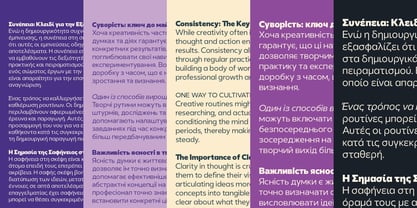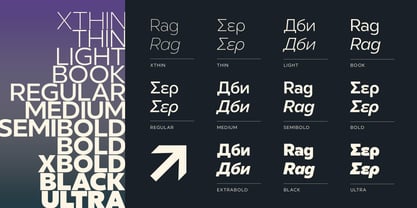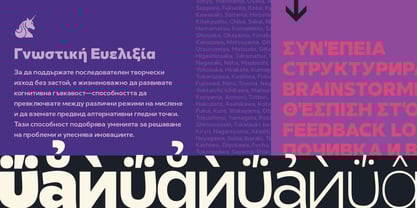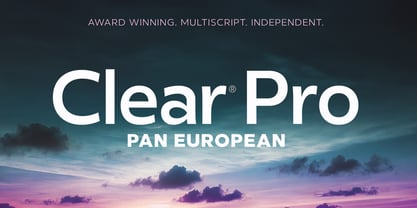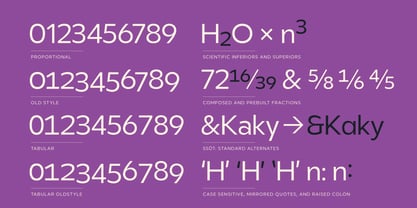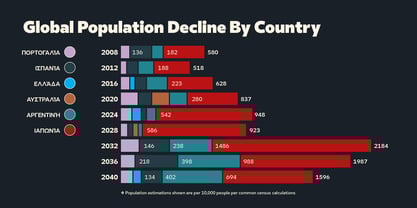
Clear Pro Pan Euro
by Positype
The Clear Pro Pan Euro Font Family was designed by Neil Summerour and published by Positype. Clear Pro Pan Euro contains 22 styles and family package options.
Winner of the 2024 Communication Arts Award of Excellence. Clear Sans™ Pro is a rational geometric sans serif designed to provide an alternative to vernacular and geometric typefaces. Originally hand-painted in 2008, it was completed for a friend's identity and later expanded. Inspired by the bold, straightforward lettering of early 20th-century signage, Clear Sans™ Pro combines precision with warmth. It offers a comprehensive range of weights, widths, italics, and an extensive character set, making it both familiar and versatile. Clear Sans™ Pro balances assertiveness and friendliness, bringing a sophisticated yet approachable tone to any design.
Clear Sans™ Pro has been further expanded to support a variety of scripts, including Arabic, Cyrillic, Greek, Korean, and Thai. This extensive script coverage ensures Clear Sans™ Pro maintains its versatility and accessibility across different languages and cultural contexts, making it an ideal choice for global brands and multilingual projects.